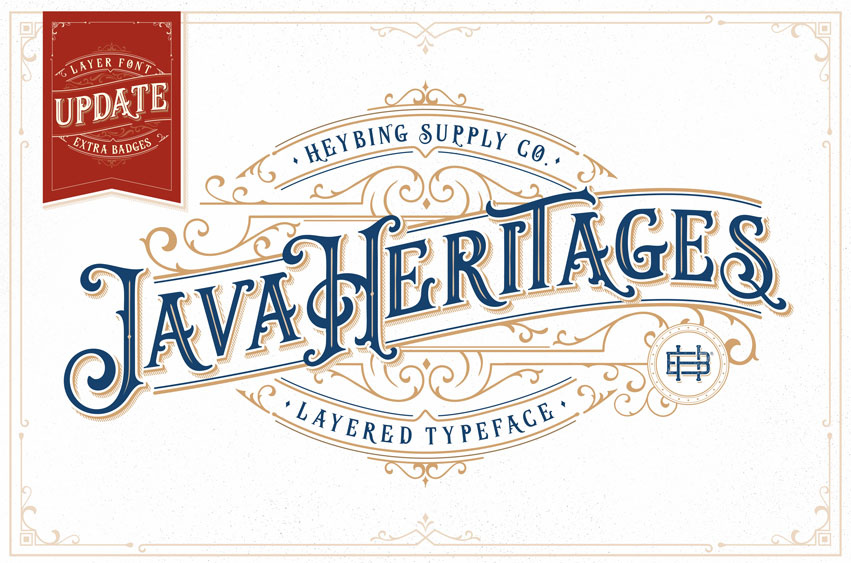
Java Heritages Font
Java Heritages Font is a jaw-droppingly stunning display font, full of vintage character and style!
This cohesive set comes with a ton of different styles and added extras so you can have beautifully crafted looking designs, thanks to the Java Heritages font set!